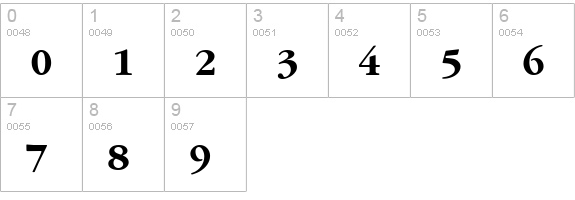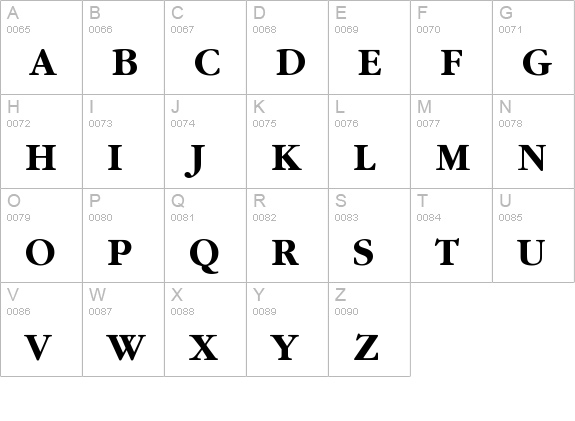
AGGaramond Cyr Bold Font Details
AGGaramond Cyr Bold is a strong, high-contrast variant in the AGGaramond typeface family \xE2\x80\x94 well suited to headlines, attention-grabbing titles, and strong calls-to-action.
AGaramond Cyr Bold font is a robust and distinctive typeface that exudes elegance and sophistication. With its bold strokes and graceful curves, this font is perfect for making a statement in your designs. Whether you're working on a print project or creating digital content, AGaramond Cyr Bold will add a touch of class and style. The best part? AGaramond Cyr Bold font is completely free to download at FontsMarket.com. So you can easily access this beautiful font and enhance your projects without any cost. Don't miss out on this opportunity to elevate your designs with the timeless appeal of AGaramond Cyr Bold font. Download it now and let your creativity shine!